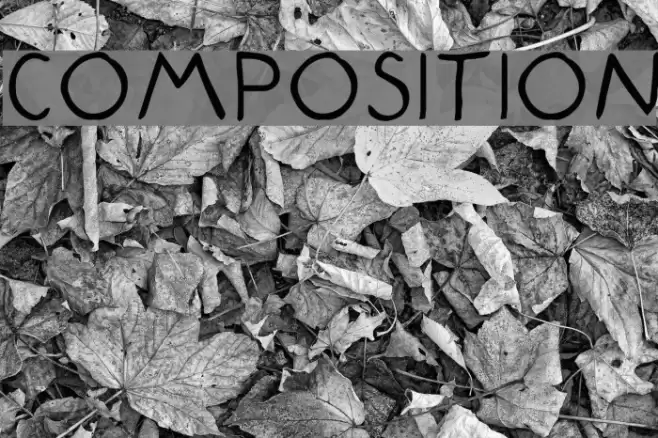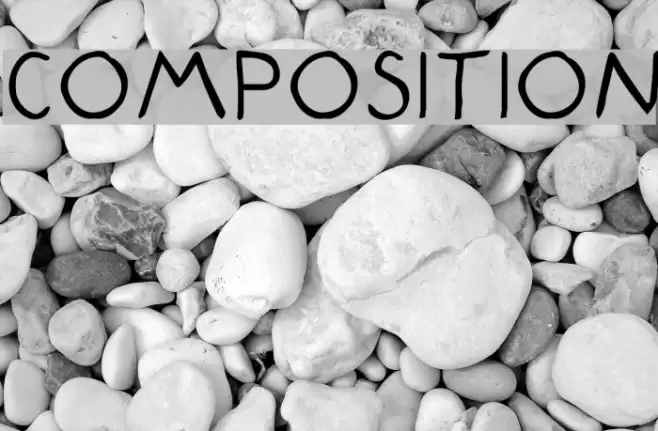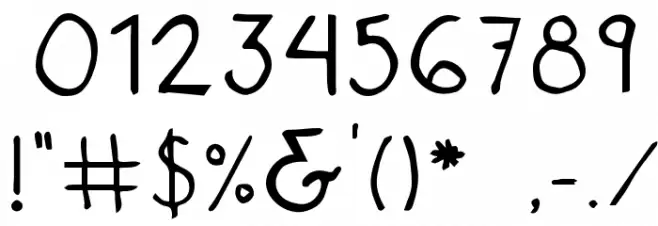
Composition Font
Composition Description
This font features a playful and informal style with a handwritten appearance. The characters are slightly irregular, giving them a casual and friendly vibe. The uppercase and lowercase letters maintain a consistent flow, with rounded edges and a slight tilt that adds to the whimsical nature. Numbers and special characters follow the same aesthetic, ensuring a cohesive look across all glyphs. The font's design is approachable and versatile, making it suitable for a variety of creative projects.
A playful, handwritten-style font with a casual and friendly vibe from Handwritten fonts.
- Proposed Projects: Ideal for children's books, greeting cards, casual branding, and playful social media graphics.
- Overall Style: Casual, Playful
- Use Case: Headlines, Informal text, Creative projects